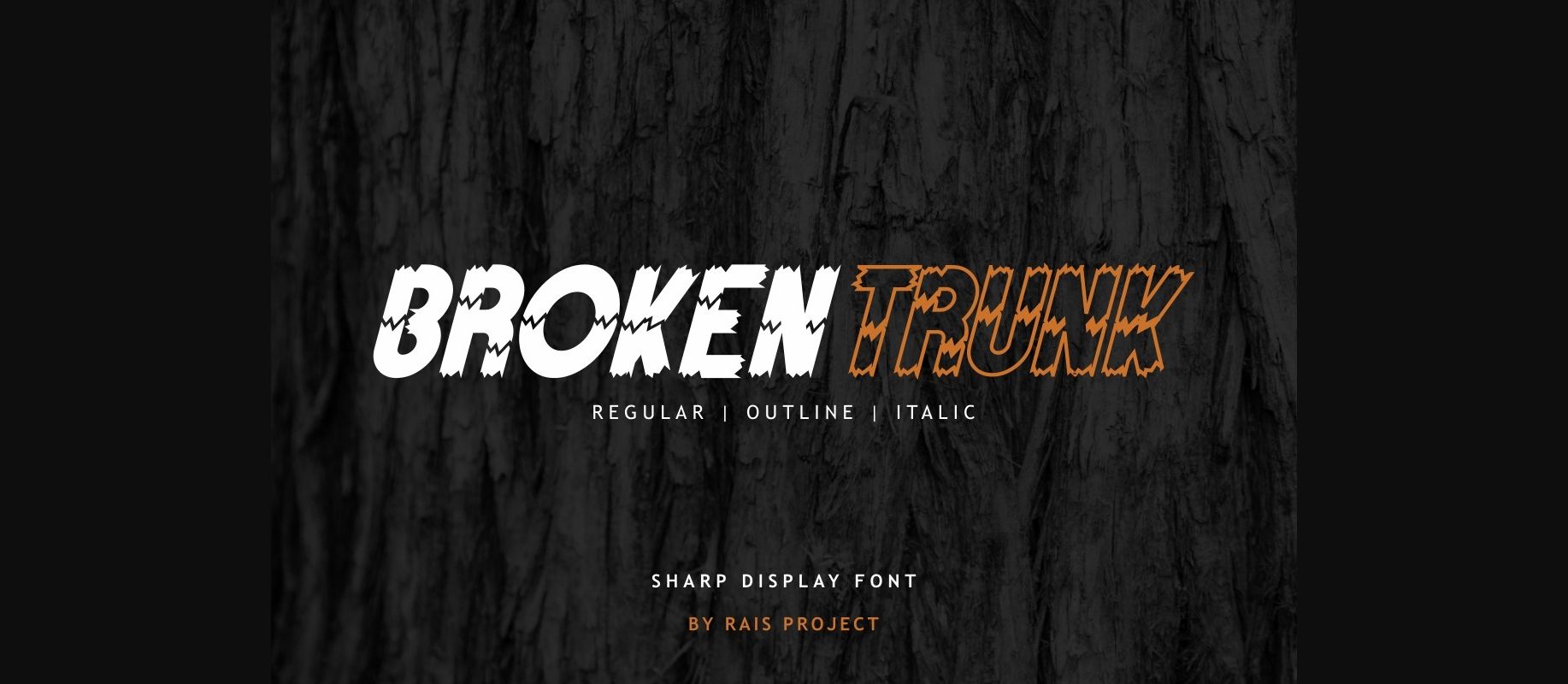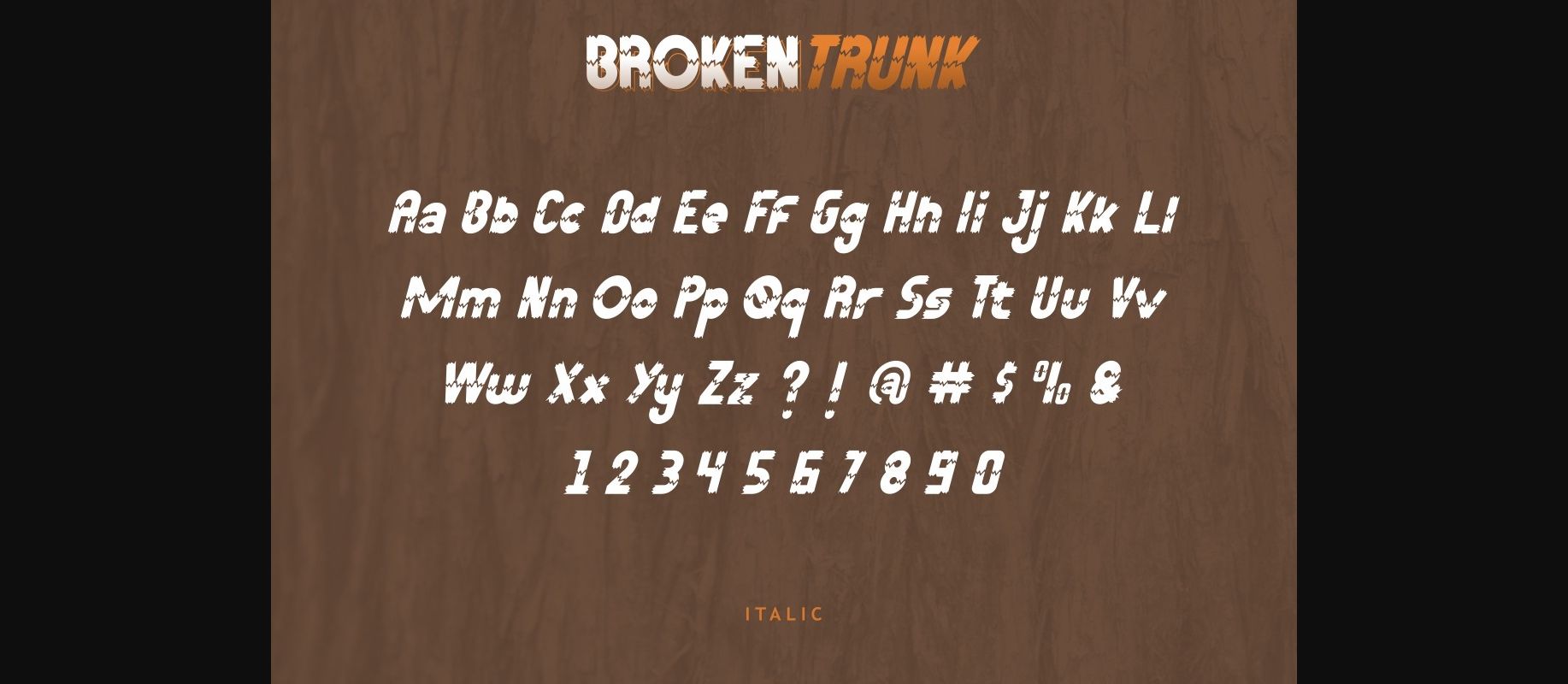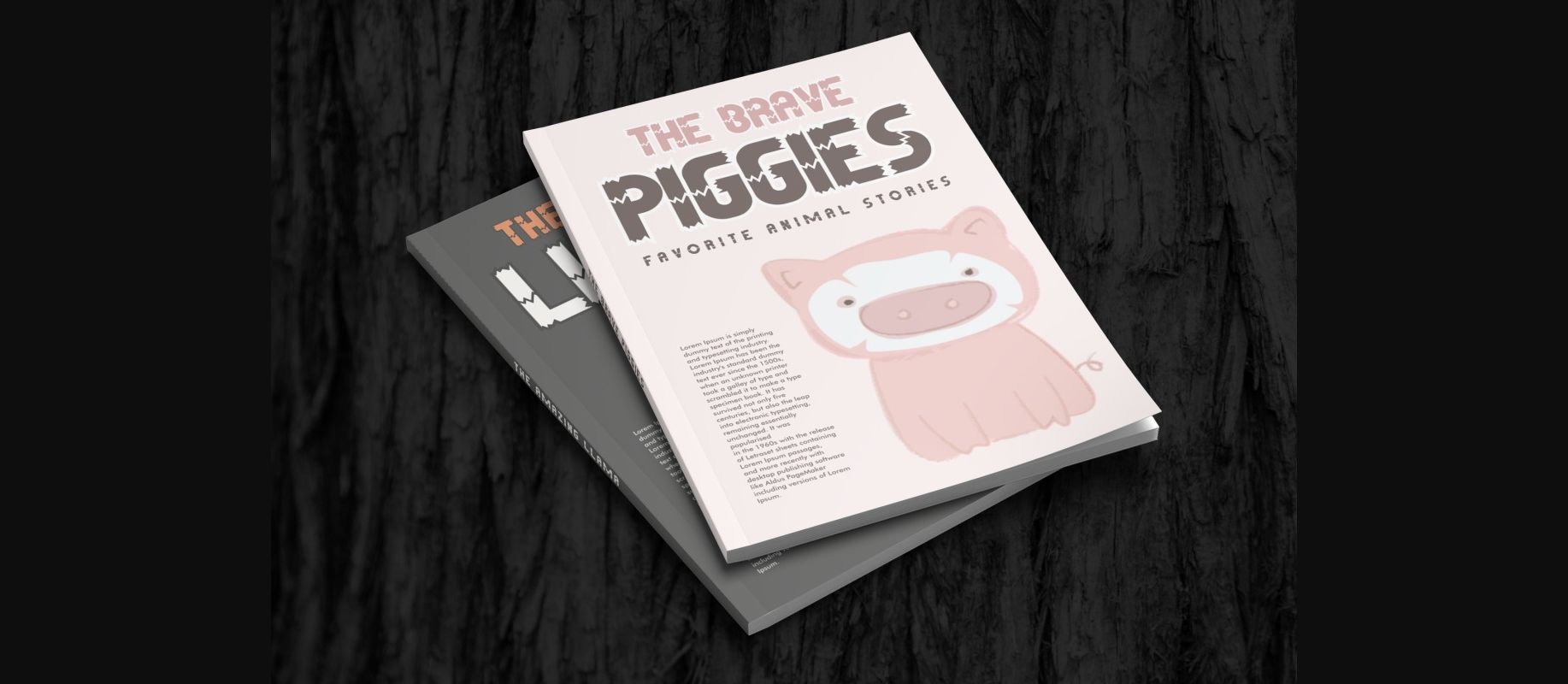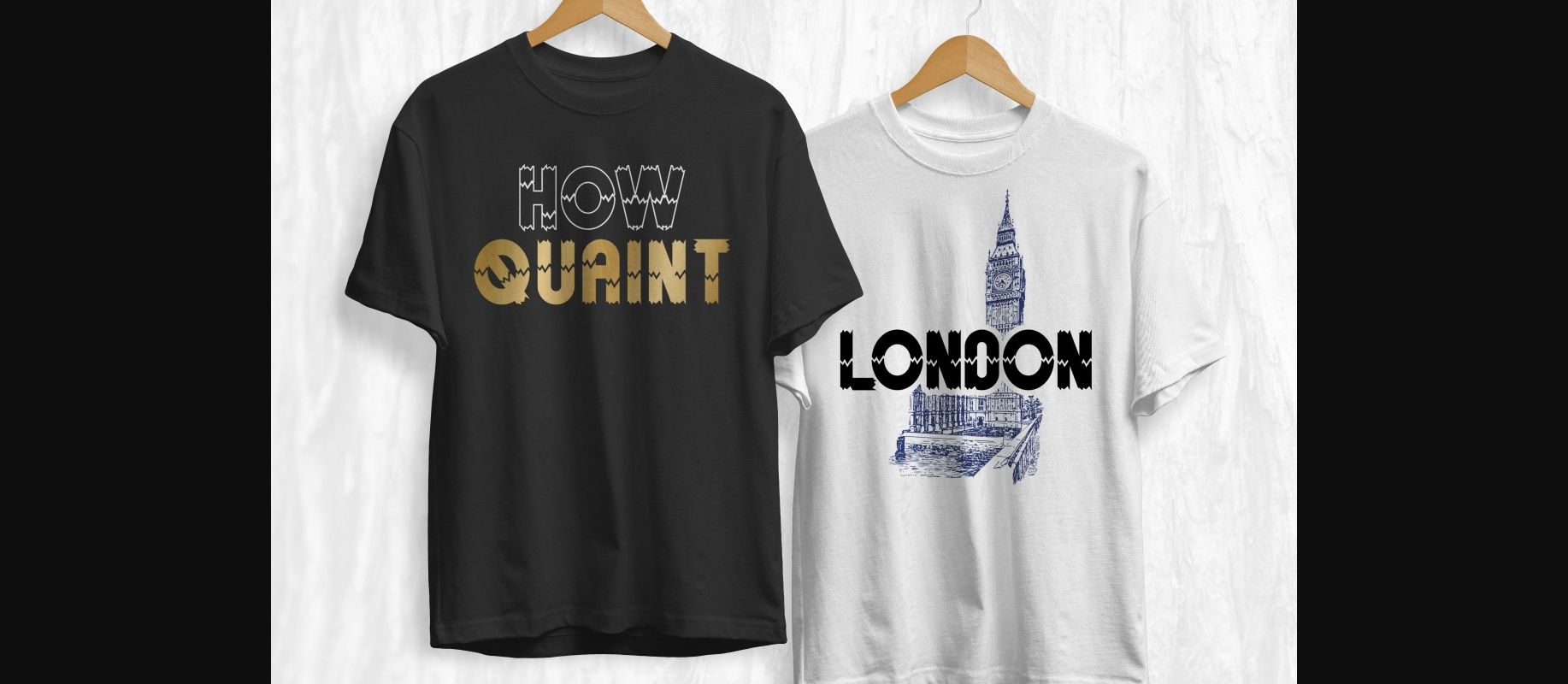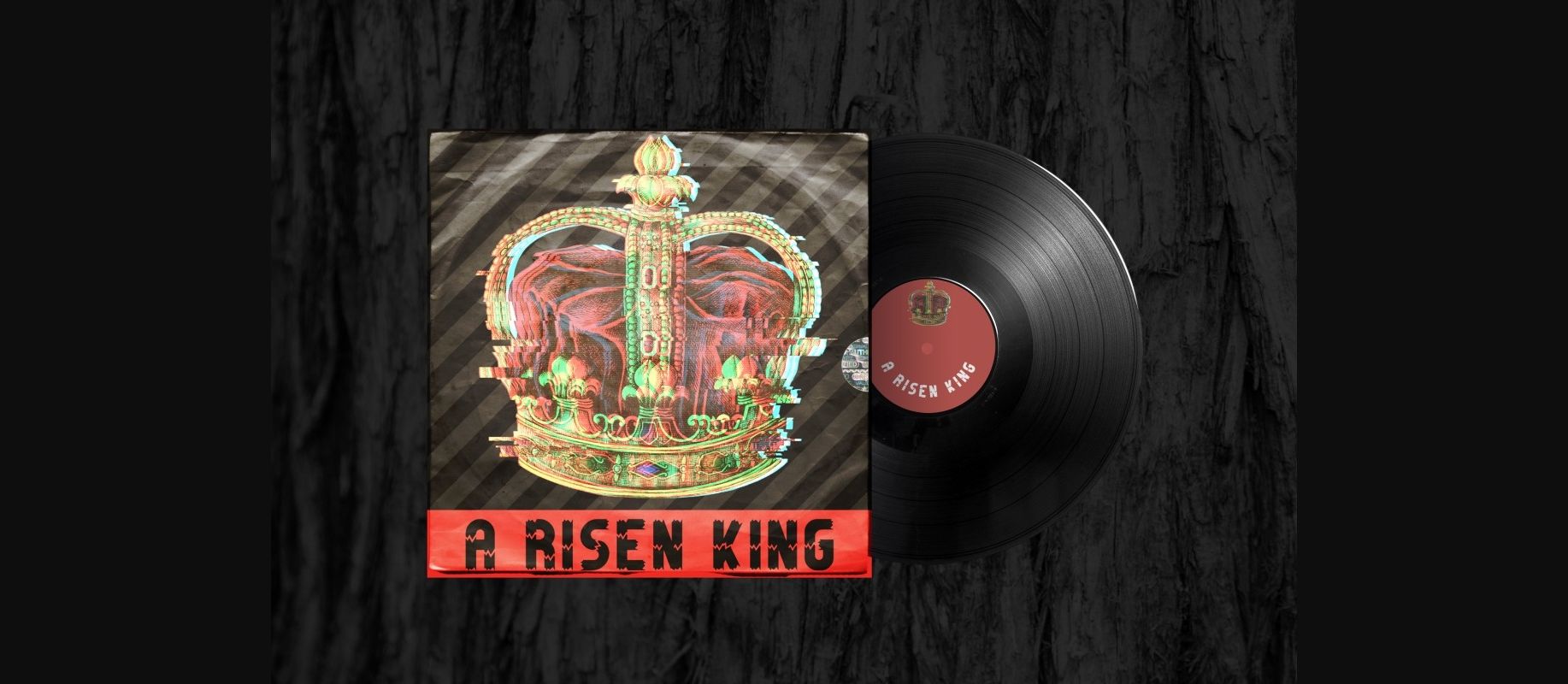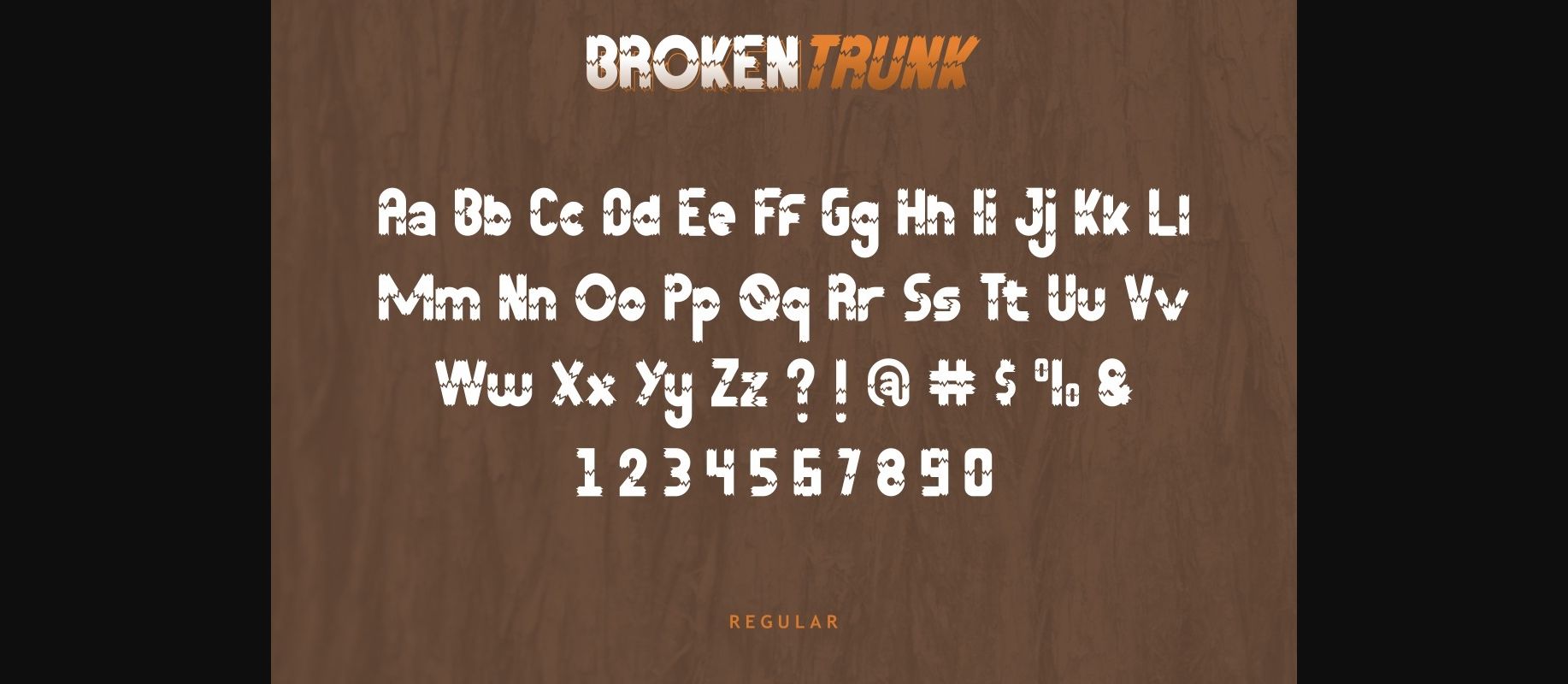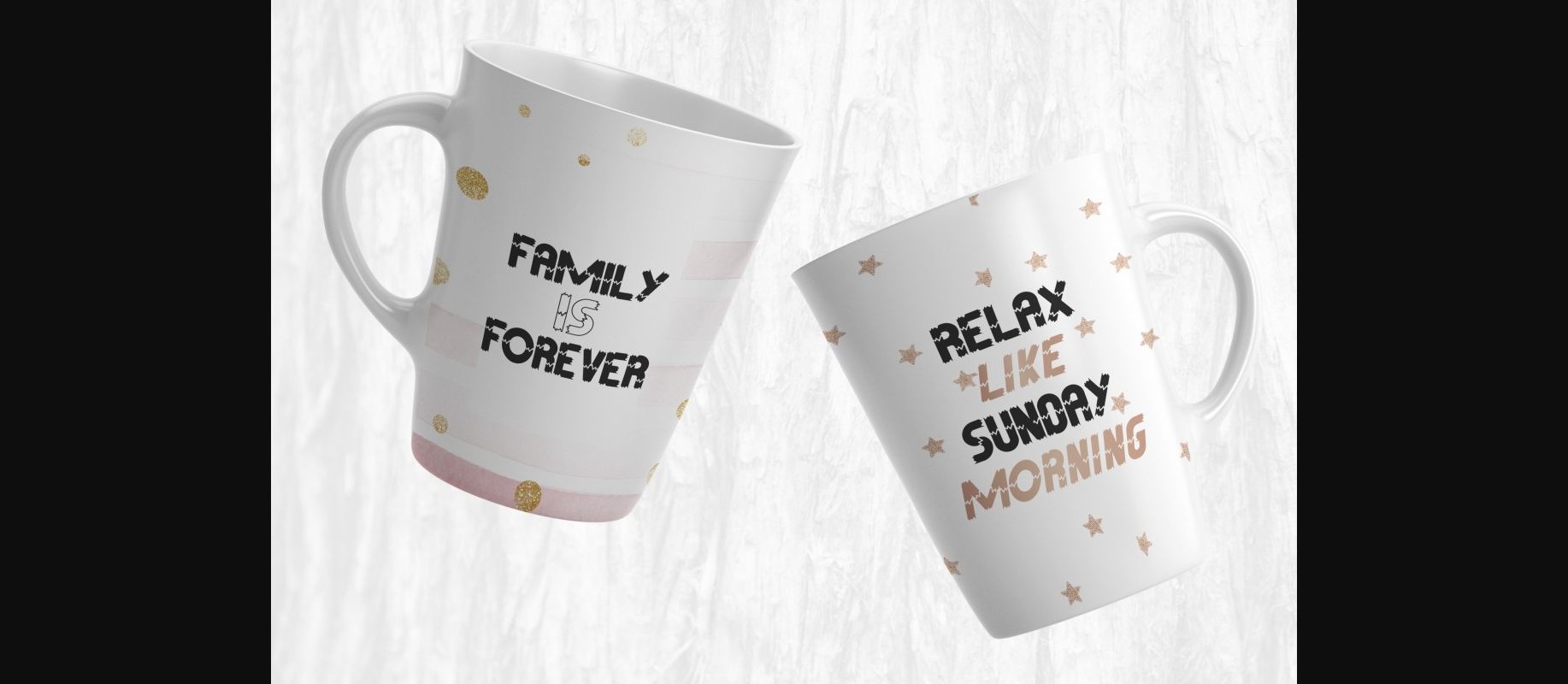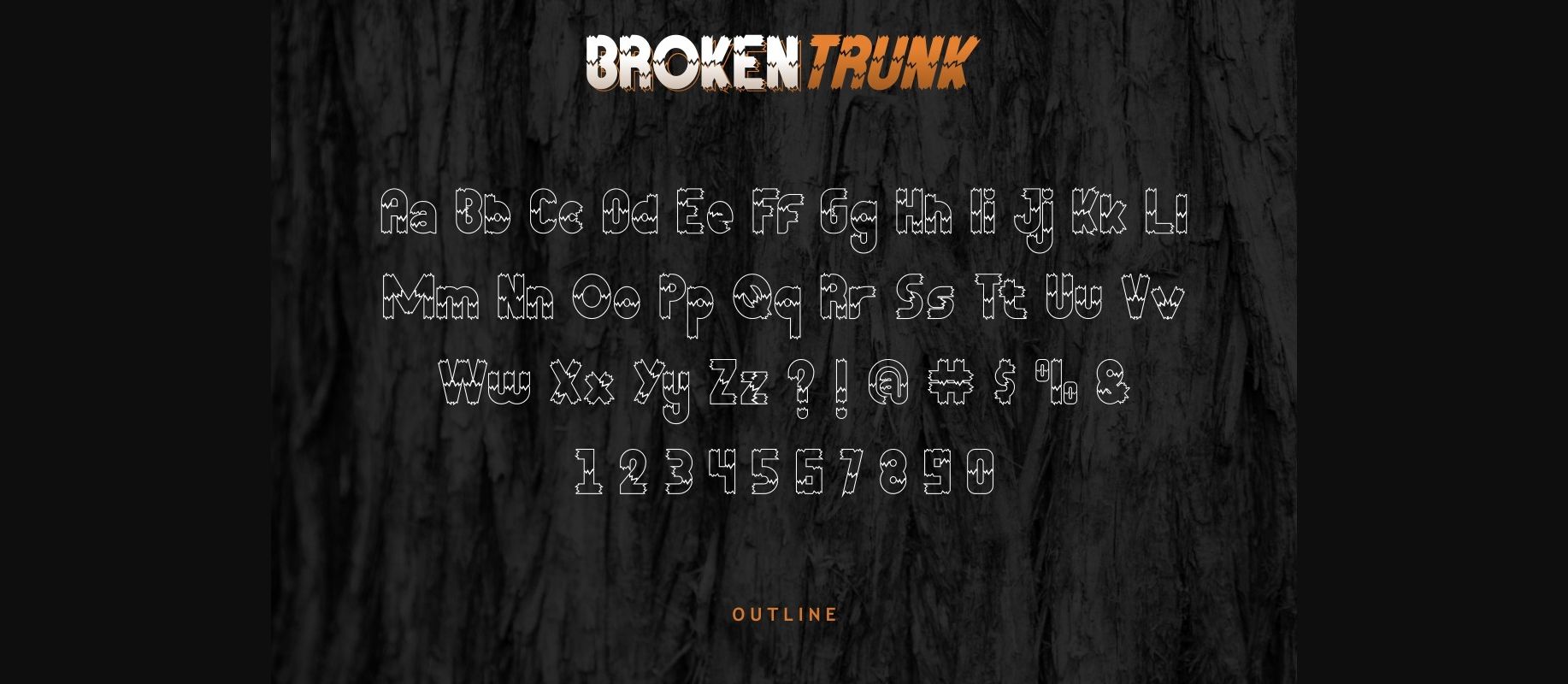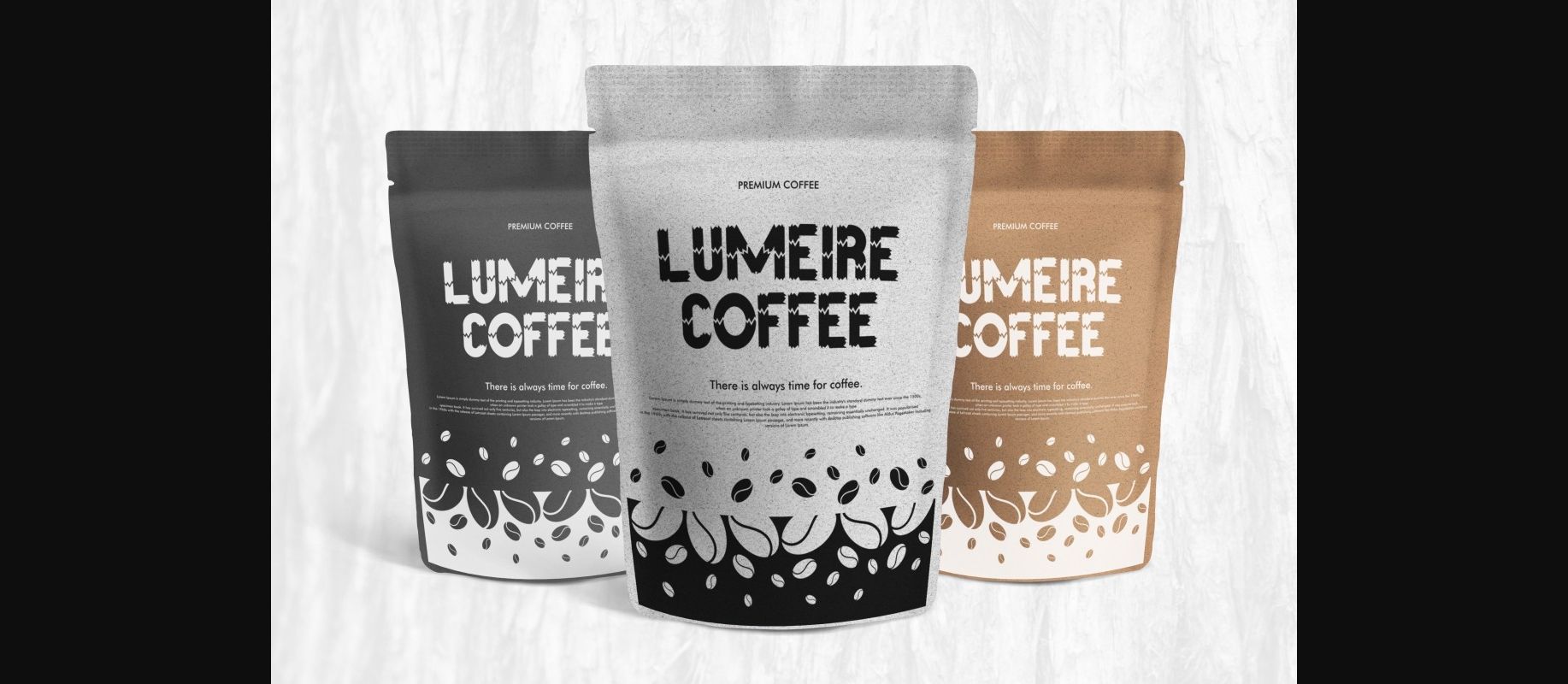
Broken Trunk Font
About Broken Trunk Font
Broken trunk is a decorative font inspired by broken tree trunks in the woods. It has a bold and mysterious style, which makes it perfect for games, movies, music titles, sports activities, and any other projects that need a strong and unique touch!